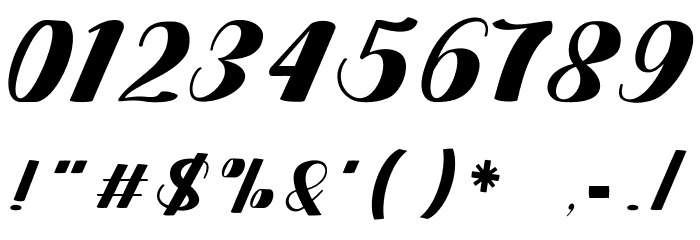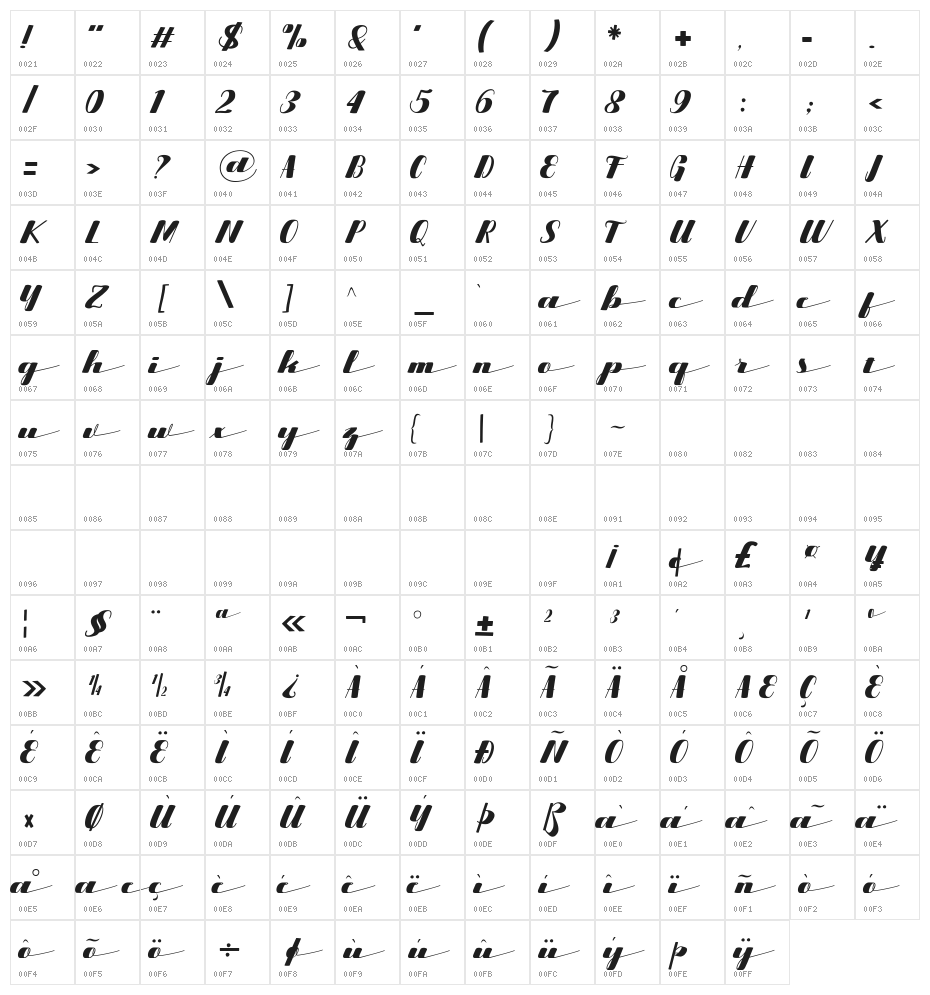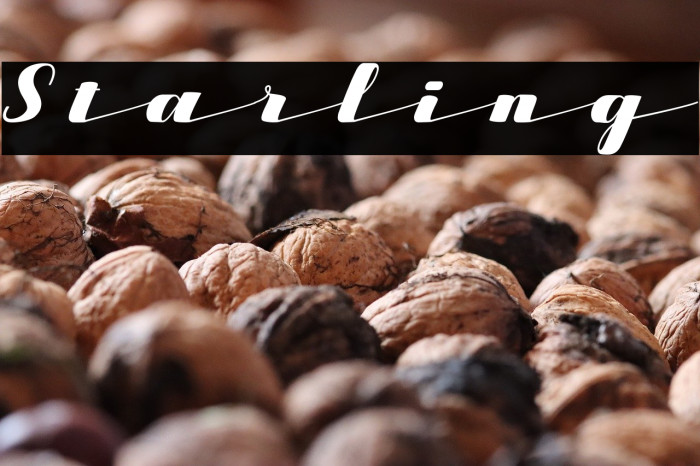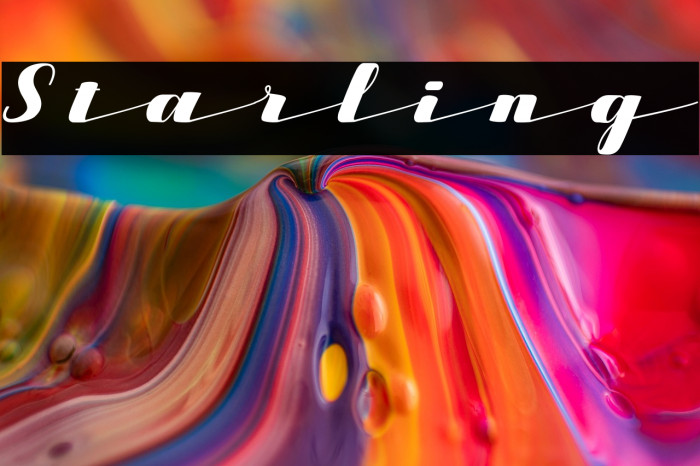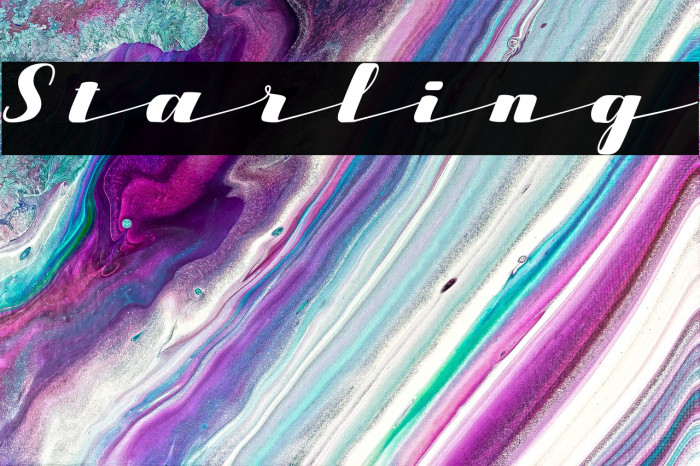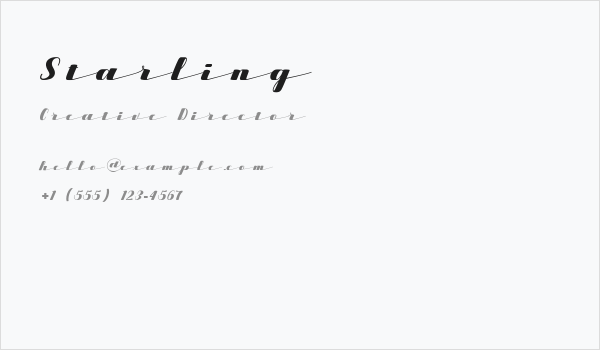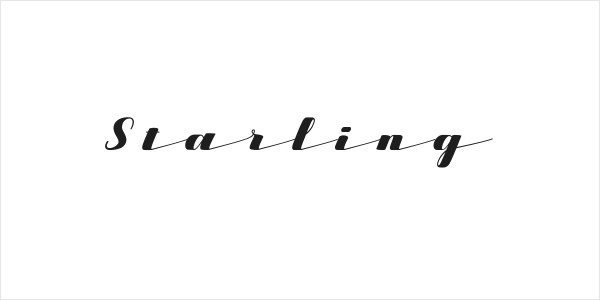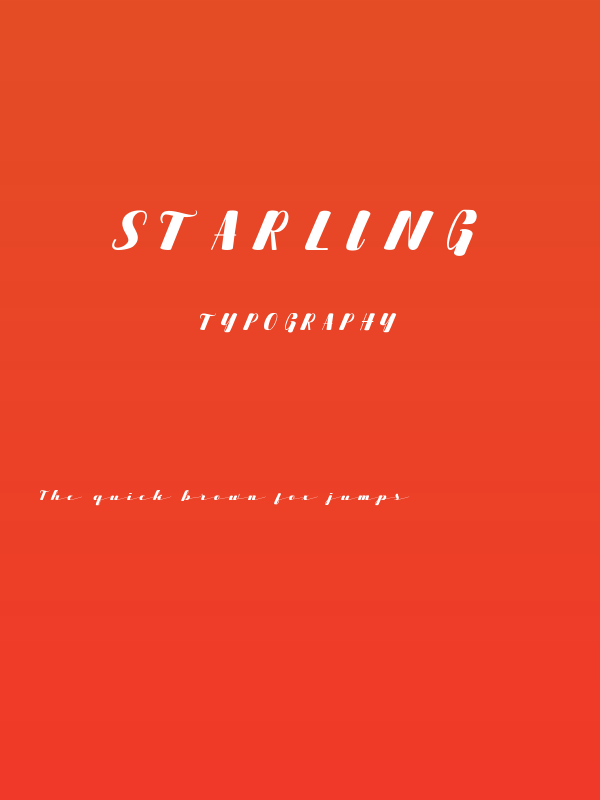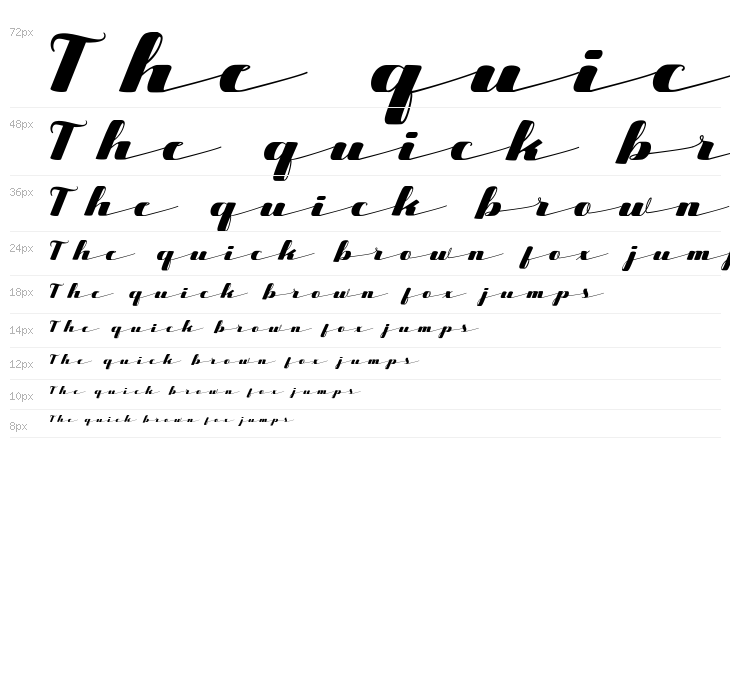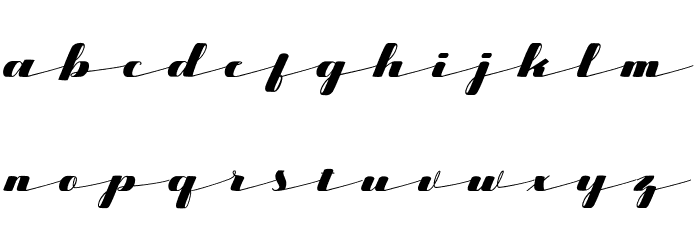
Starling Font
Starling Description
This font exhibits a stylish and elegant script style, characterized by its flowing, cursive letterforms that convey a sense of sophistication and grace. The uppercase letters are bold and slightly slanted, with distinctive flourishes that add a touch of flair. The lowercase letters maintain a consistent slant, enhancing the cursive appearance and providing a seamless flow between characters. The numerals are bold and dynamic, complementing the overall aesthetic of the font. Special characters are designed with the same attention to detail, ensuring a cohesive look across all glyphs. This font is ideal for projects that require a touch of elegance and personality.
| Proposed Projects | Ideal for wedding invitations, elegant branding, high-end product packaging, and personal stationery. |